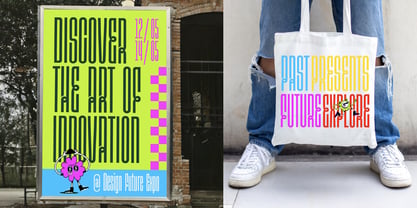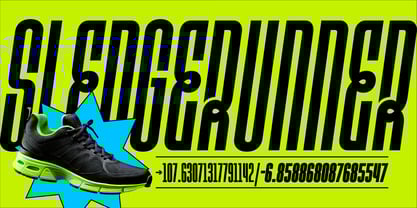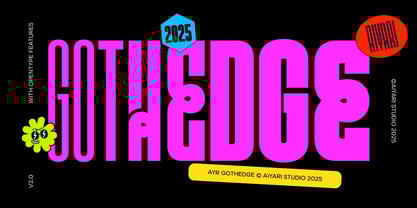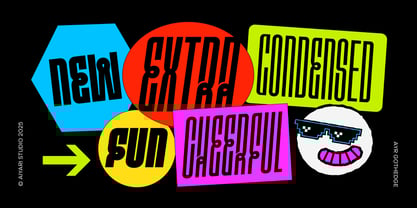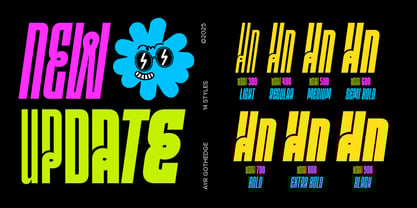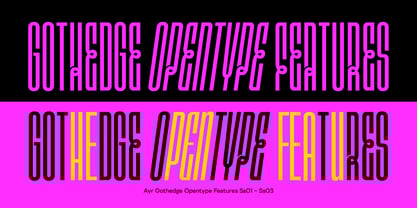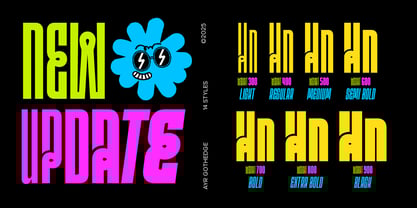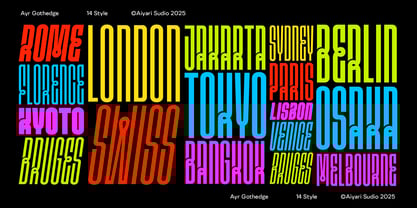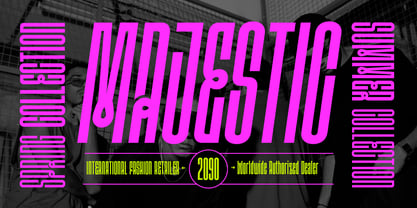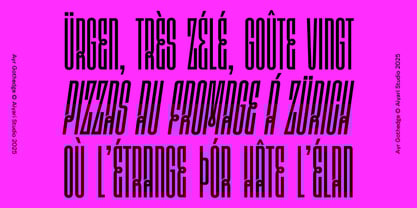
Ayr Gothedge
by Aiyari
The Ayr Gothedge Font Family was designed by Ricky Rinaldi and published by Aiyari. Ayr Gothedge contains 14 styles and family package options.
Introducing Gothedge, a striking 14 font family that seamlessly blends the elegance of clean, streamlined letterforms with the playful and experimental spirit of the Art Nouveau era. Its ultra-condensed, tall letterforms feature unique curving details, making Gothedge is the ideal choice for those seeking a balance between refined elegance and avant-garde creativity. Gothedge excels in various applications, including headings, invitations, logos, quotes, apparel design, flyers, posters, greeting cards, product packaging, book covers, album covers, and movie titles.
Aiyari Studio was founded in 2015 by Ricky Rinaldi, a renowned graphic and type designer from Bandung, Indonesia. Aiyari Studio's typefaces are characterized by their retro and nostalgic style, making them a valuable asset for designers aiming for a modern yet nostalgic style. It doesn't matter whether you're designing packaging, editorial layouts, or websites, Aiyari Studio typefaces will elevate your work and amplify its sense of timeless sophistication.